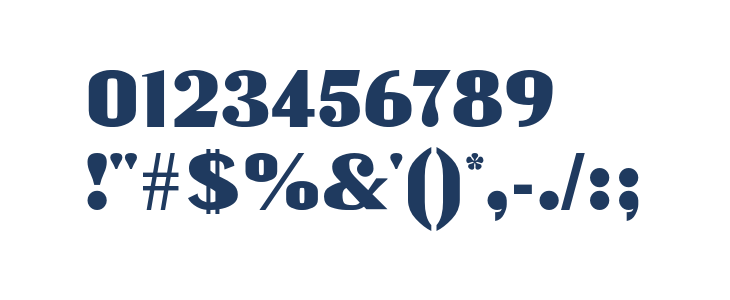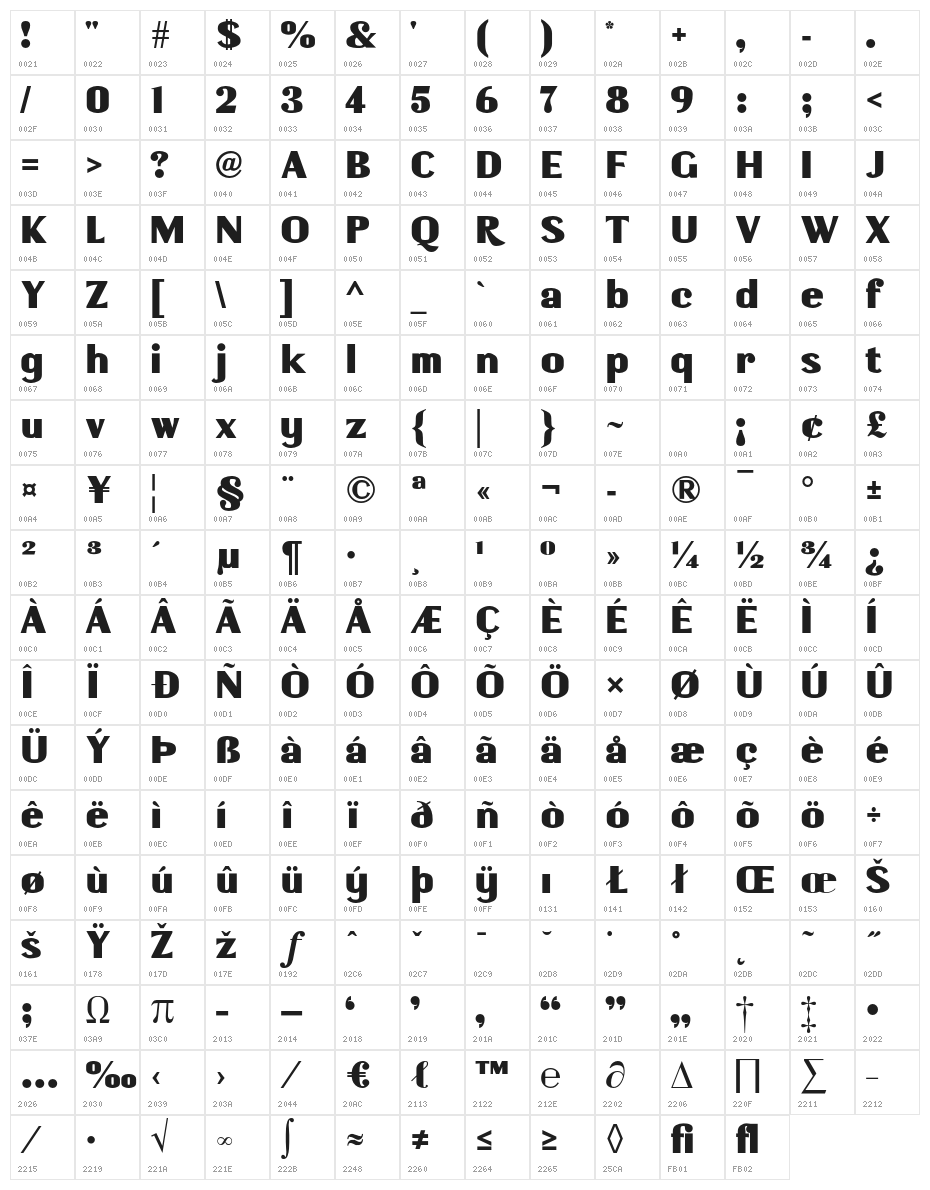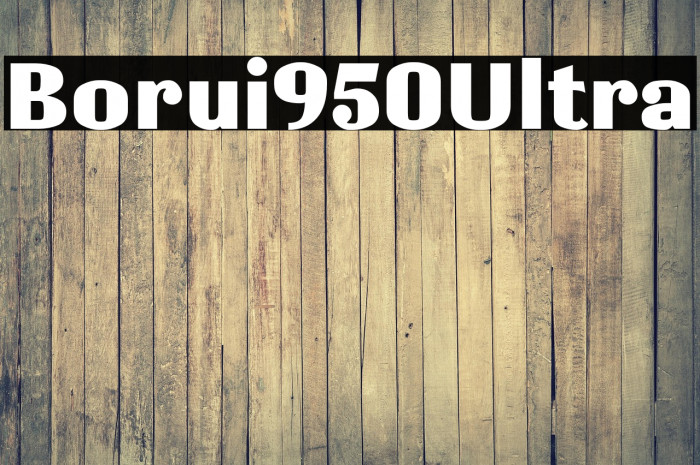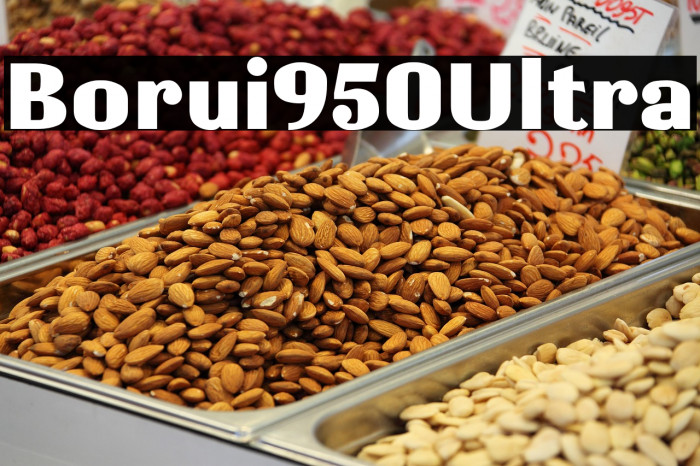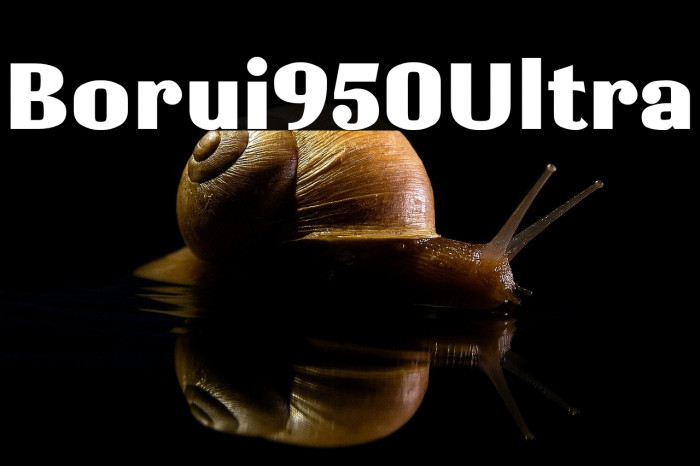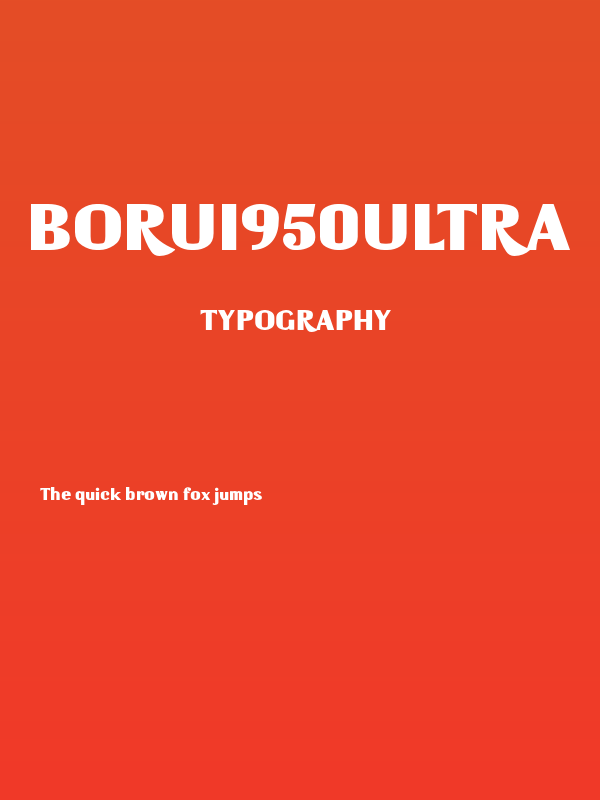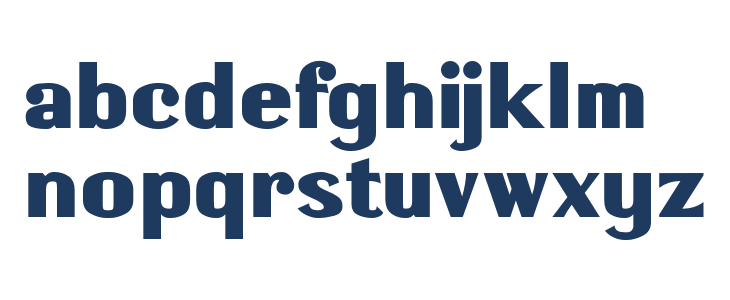
Borui950Ultra Font
Borui950Ultra Description
This font features a bold and commanding presence with its thick, sturdy strokes and slightly condensed letterforms. The uppercase letters are particularly striking, with a strong geometric influence that gives them a modern and assertive look. The lowercase letters maintain this boldness while offering a more rounded and approachable feel. Numbers are equally robust, ensuring clear readability. Special characters are designed with the same boldness, making them stand out effectively. Overall, this font is ideal for making a strong visual impact.
| Proposed Projects | Ideal for headlines, posters, branding materials, and any project requiring a strong visual impact. |